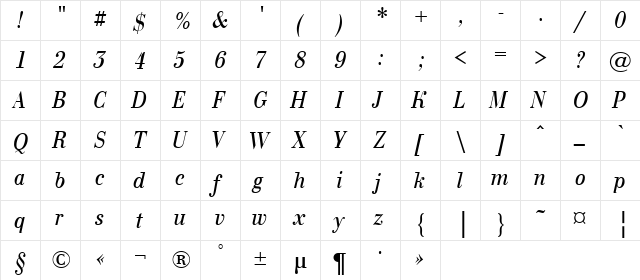
a_BodoniNovaNr Italic
Design Context for a_BodoniNovaNr Typeface
a_BodoniNovaNr takes a measured approach to typography — its balanced proportions and neutral character make it a reliable workhorse for both digital and print work. The slanted form adds forward momentum and visual energy.